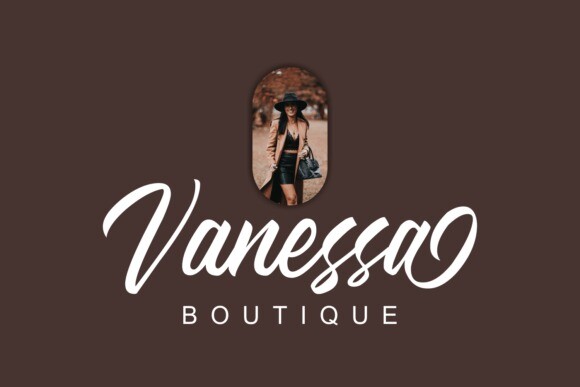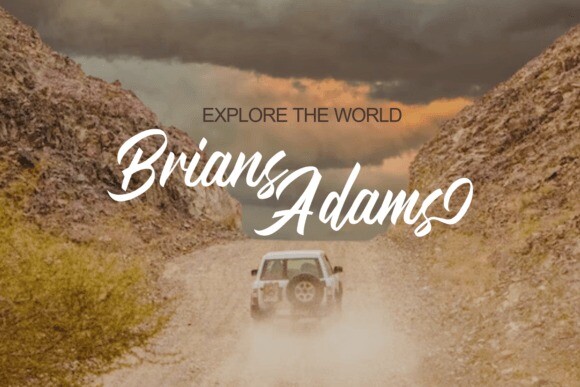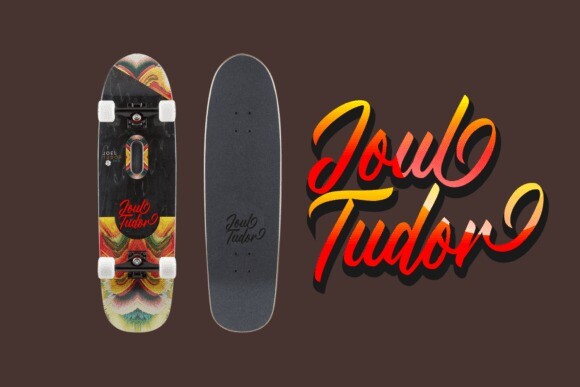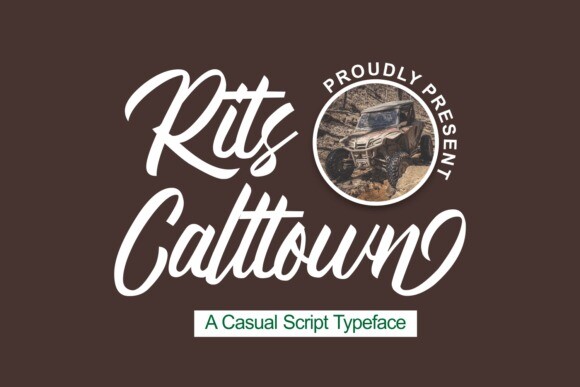
Rits Calltown Font
Rits Calltown Font is a handwritten font from zamjumps-studio that is suitable for branding, signature, wedding invitation, promotion, product packaging, and other needs. Fall in love with its incredibly distinct and timeless style and use it to create spectacular designs!